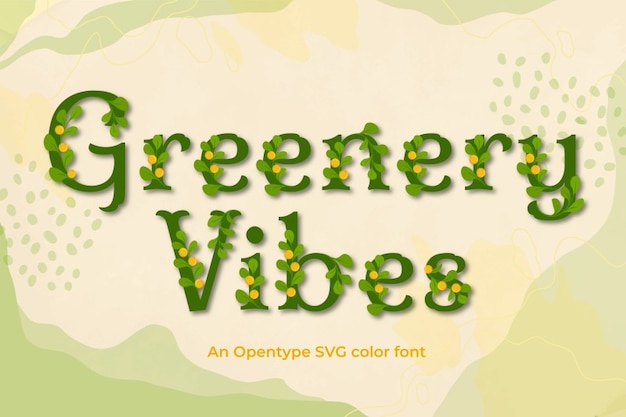
Get ready to embrace the lush charm of Greenery Vibes, a font that effortlessly intertwines nature and creativity. Each letter blooms with botanical elegance, as if plucked from a vibrant garden of typographic delights. With its decorative flair, this font invites a touch of the outdoors into your designs, making it perfect for projects that celebrate the beauty of plants and the artistic essence of nature. Whether you're cultivating a green-themed masterpiece or infusing creativity into eco-conscious designs, Greenery Vibes brings a breath of fresh, leafy air to your typographic palette. Let your text blossom with the verdant vibes of this uniquely organic font.